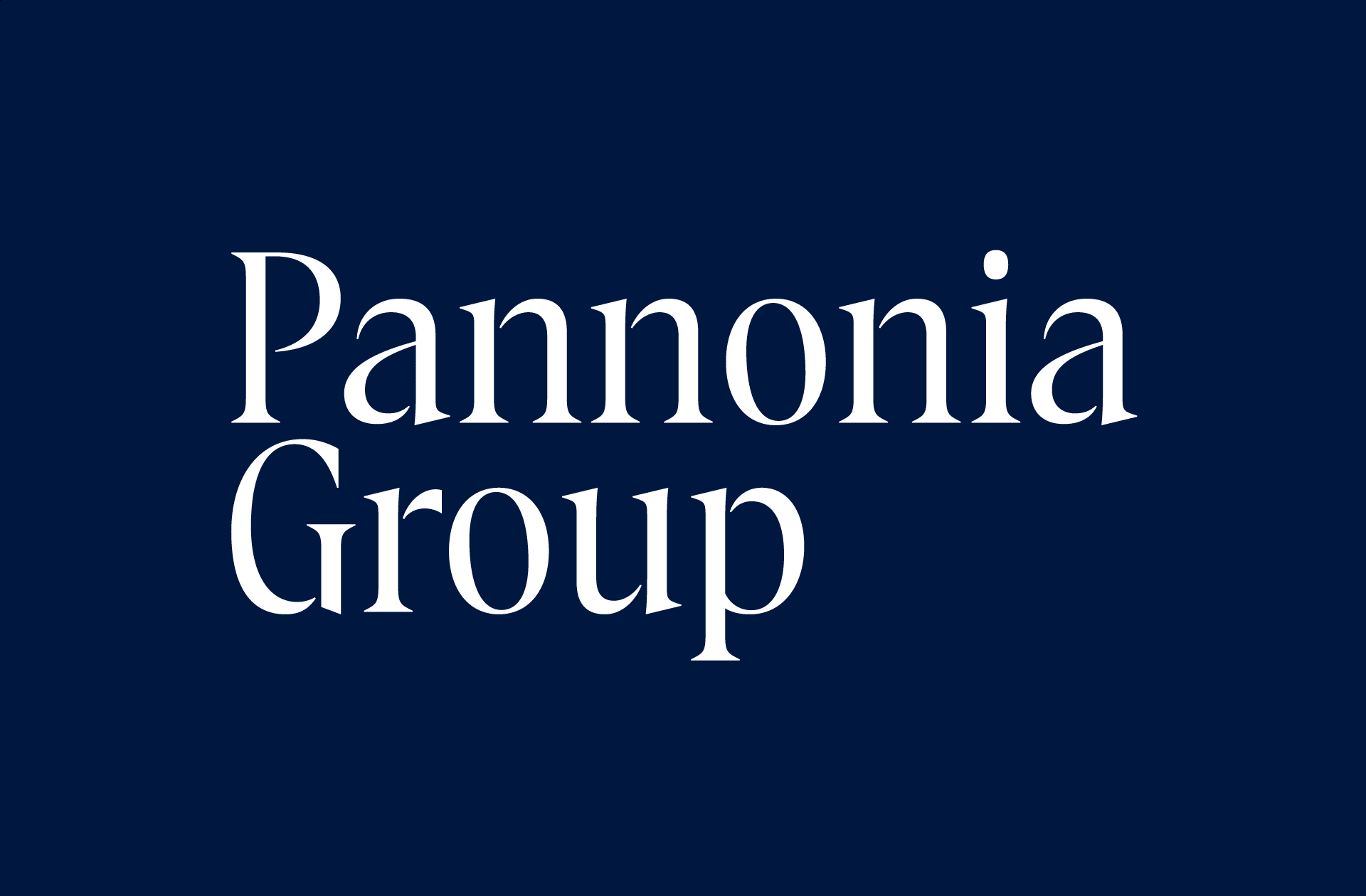
- Slovak National Design Award Nomination
Pannonia Group
Custom Fonts2022
Custom typeface designed specifically for use in the visual identity of Pannonia Group, a Slovak investments fund.
The serif typeface, concurrently radiating elegance, seriousness and assertiveness, has narrow proportions, a high, slightly dynamic contrast, and fine wedge serifs.